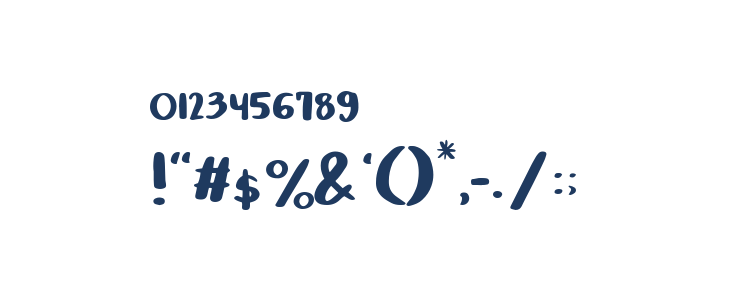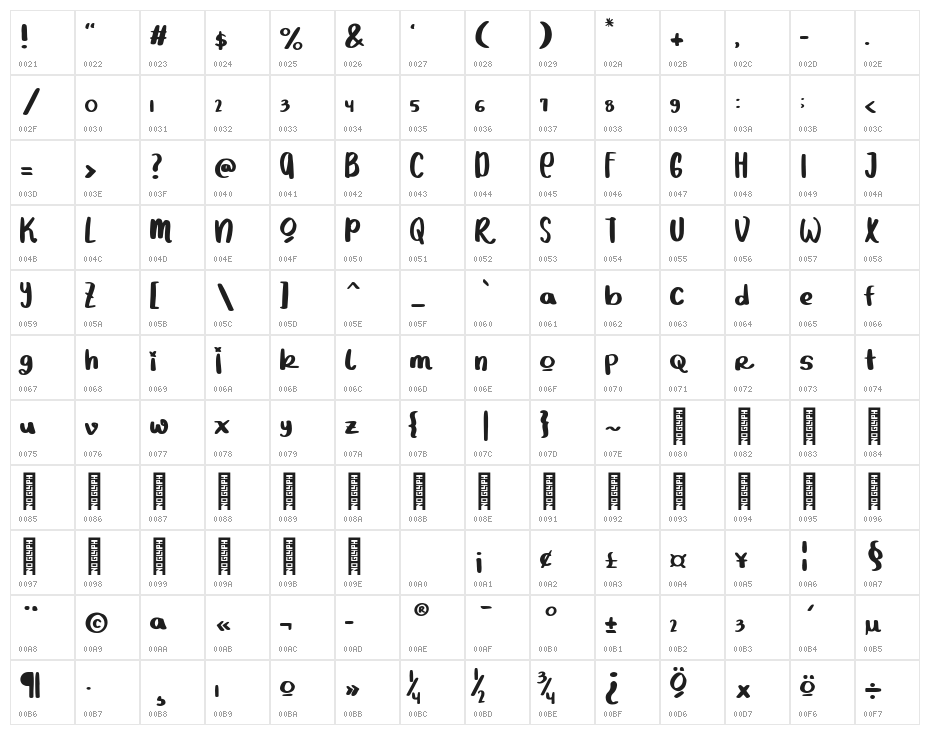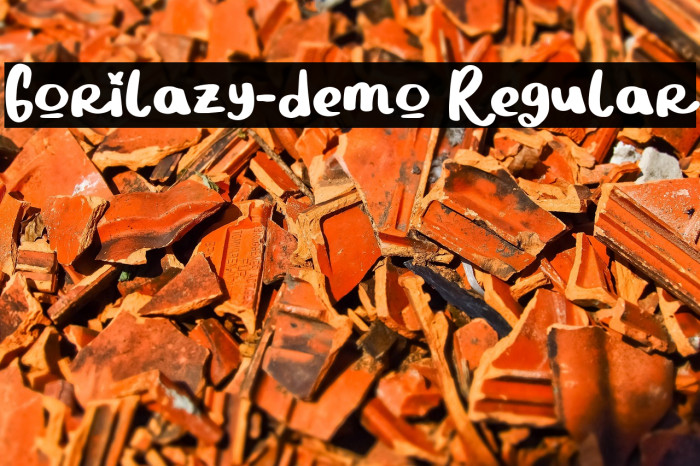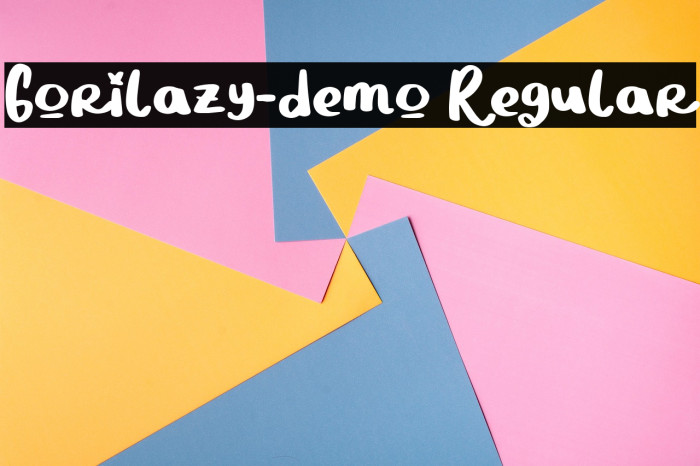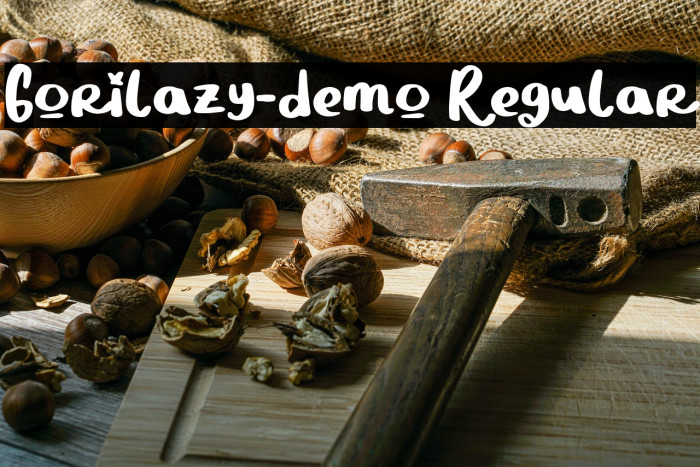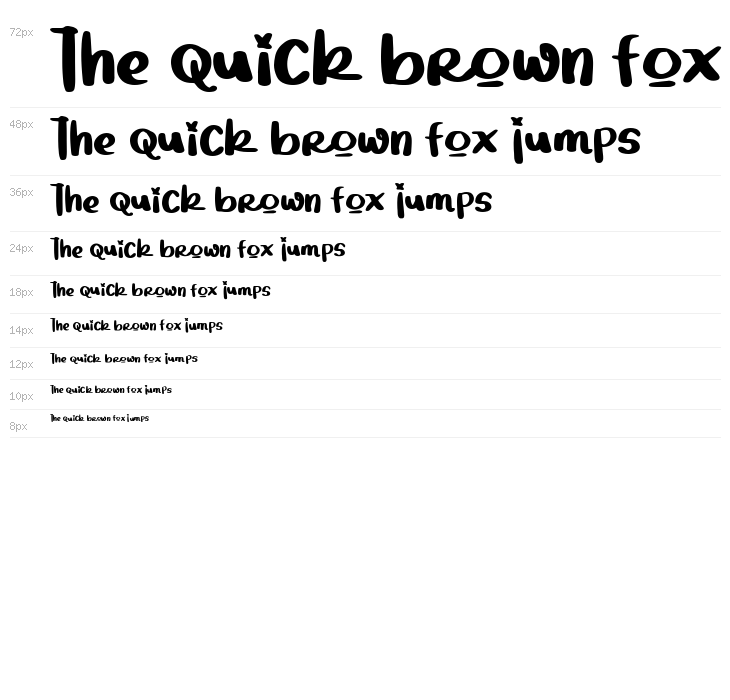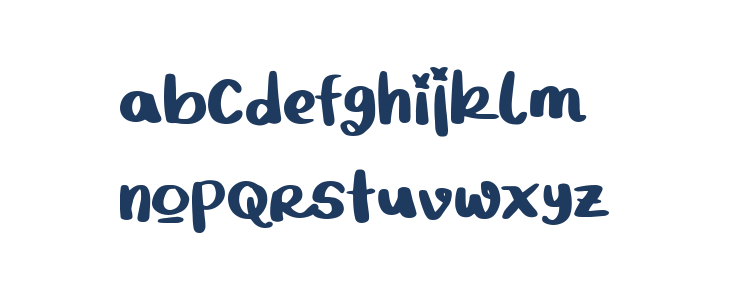
Gorilazy-demo Regular Font
Gorilazy-demo Regular Description
This playful and bold font features a handwritten style with a whimsical touch. The characters are rounded and have a slightly irregular shape, giving them a friendly and approachable appearance. The uppercase letters are tall and prominent, while the lowercase letters maintain a consistent flow with unique flourishes, particularly noticeable in letters like 'g' and 'k'. The numbers are equally bold and maintain the playful aesthetic. Special characters are well-integrated, matching the overall style. This font's thick strokes and rounded edges make it stand out, perfect for creative and informal projects.
| Proposed Projects | Ideal for children's books, playful branding, greeting cards, and creative posters. |